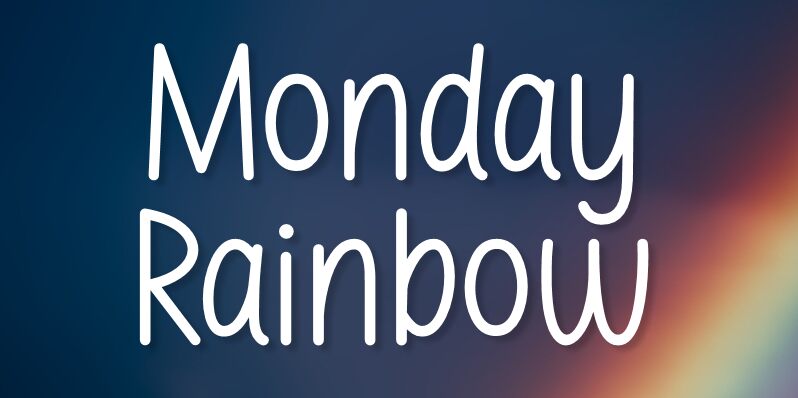
Monday Rainbow is a beautiful handwritten font created by designers Kristoper Sianturi and Situjuh Nazara. Its light weight and narrow width make it perfect for adding a personal touch to projects like wedding invitations, greeting cards, and posters.